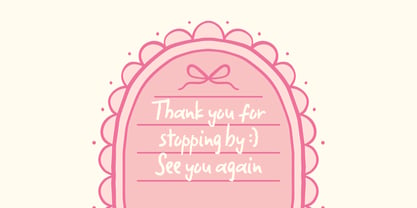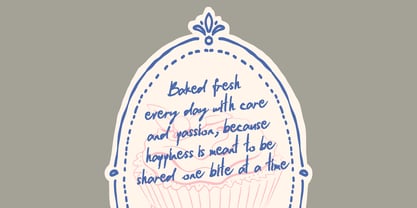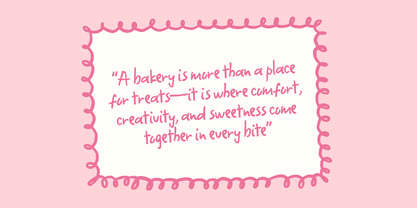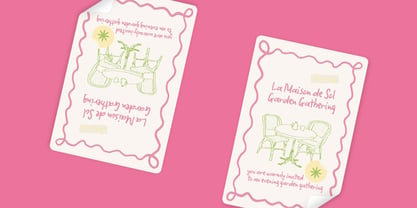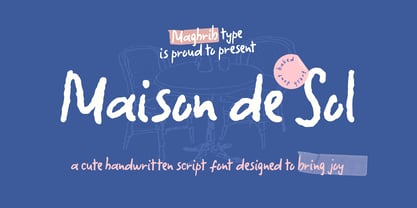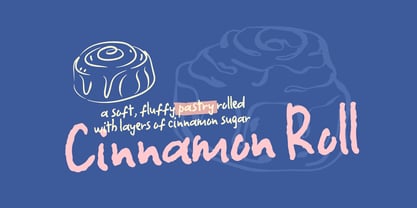
Maison De Sol
by Maghrib Type
The Maison De Sol Font Family was designed by Rizky Setyaludin and published by Maghrib Type. Maison De Sol contains 2 styles and family package options. More about this family
Introducing Maison De Sol, a charming and expressive handdrawn font duo crafted to bring warmth, creativity, and personality to your designs. Inspired by cozy cafés, handwritten notes, bakery menus, and joyful everyday moments, Maison De Sol combines an authentic handwritten script with a playful handdrawn sans serif, creating the perfect pairing for modern branding and creative projects.
The script font features natural strokes, organic imperfections, and a friendly handwritten flow that feels personal and inviting. Complementing it is a handdrawn sans serif that adds balance, versatility, and readability while maintaining the same handcrafted character. Together, they create a harmonious font duo suitable for both display and supporting text.
Whether you're designing branding materials, packaging, social media graphics, greeting cards, invitations, product labels, posters, or lifestyle content, Maison De Sol delivers a sweet and approachable aesthetic that helps your message feel genuine and memorable.